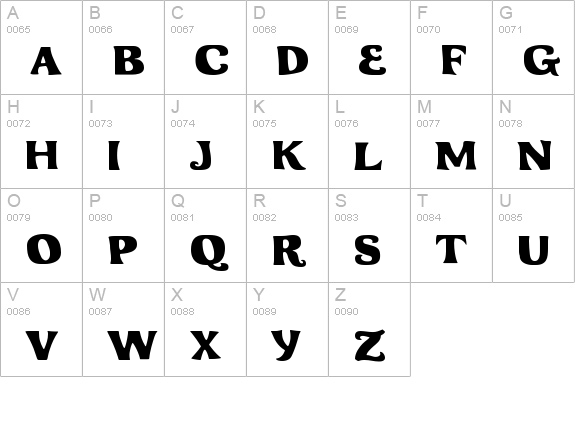
Whiterock Font Details
Introducing Whiterock font, a stunning display typeface that exudes elegance and sophistication. With its clean lines and modern design, Whiterock is perfect for a wide range of design projects, from branding to editorial design. This versatile font is sure to make your text stand out and leave a lasting impression. The best part? Whiterock is completely free to download at FontsMarket.com. So you can add this beautiful font to your collection without any cost. Don't miss out on the opportunity to elevate your designs with Whiterock font today!